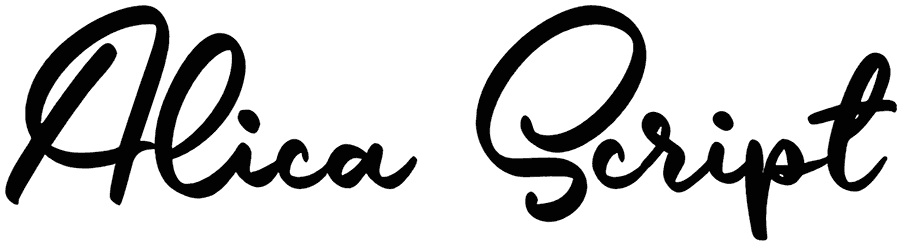
Alica Script Font
Alica Script shows a font combining floral and circular lines, which can be very important for future projects. This script font is a bit unreadable, so choose it for the right text. Whether it is for clothing pursuits, logos, invitations, or anywhere else that you feel authenticity is a key factor, you can use it. Contemporary designs commonly use this love font for many purposes.